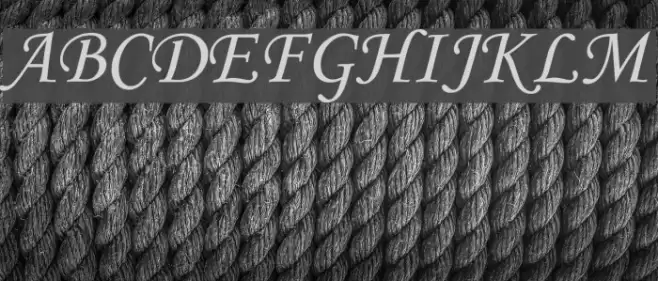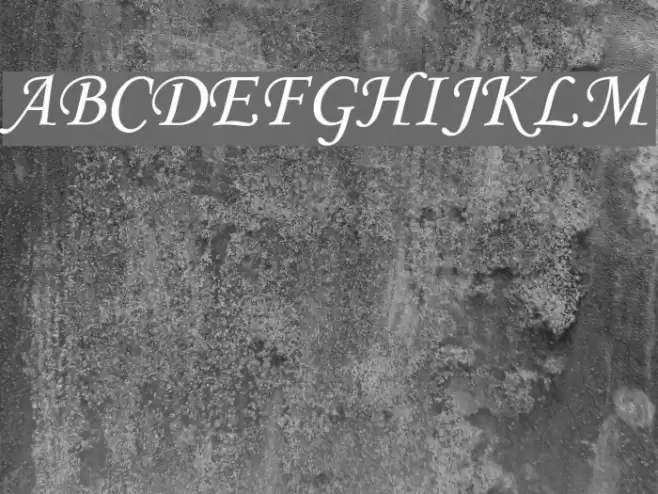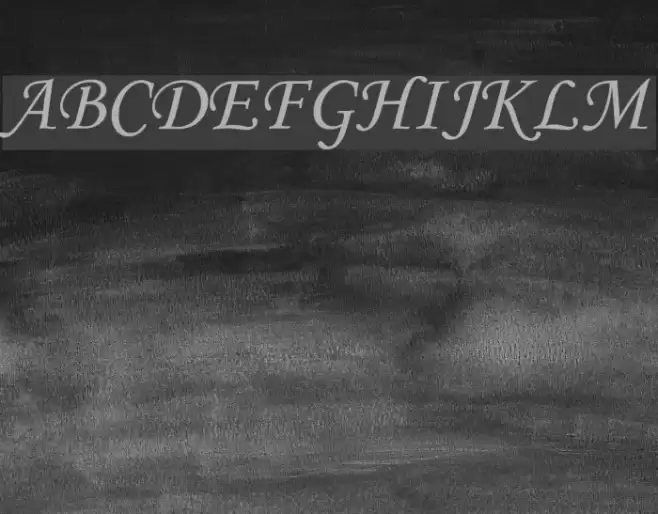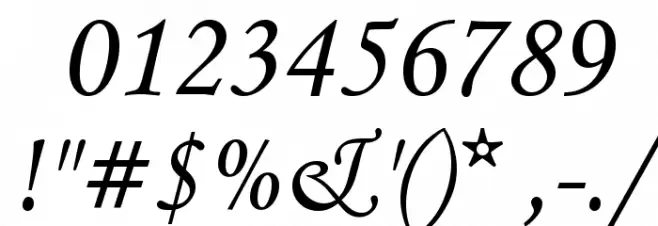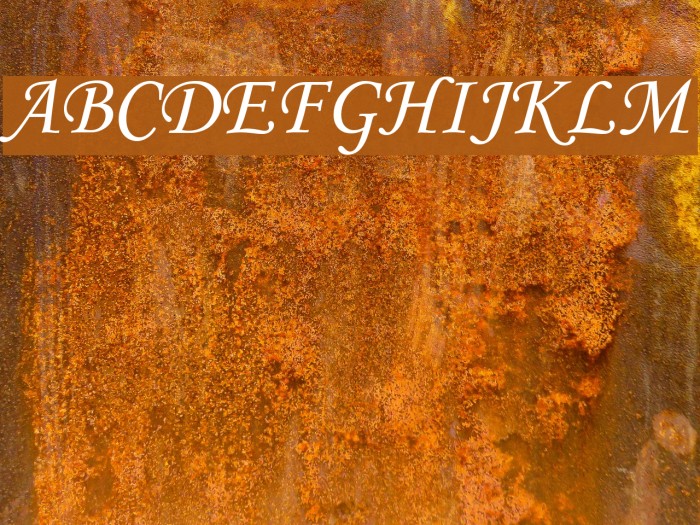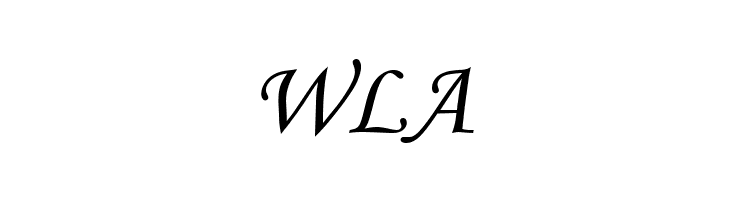
Cursiv Font
Cursiv Description
This elegant script font features a flowing, cursive style with a classic touch. The uppercase letters are gracefully designed with sweeping curves and delicate serifs, while the lowercase letters maintain a consistent slant and fluidity, enhancing its handwritten appeal. The numerals are well-balanced, complementing the overall aesthetic. Special characters are thoughtfully integrated, maintaining the font's cohesive look. Its refined strokes and moderate contrast make it suitable for formal and decorative applications.
An elegant cursive script font with classic, flowing strokes from Uncategorized fonts.
- Proposed Projects: Ideal for wedding invitations, elegant branding, greeting cards, and formal event programs.
- Overall Style: Classic
- Use Case: Logos, Invitations, Decorative text